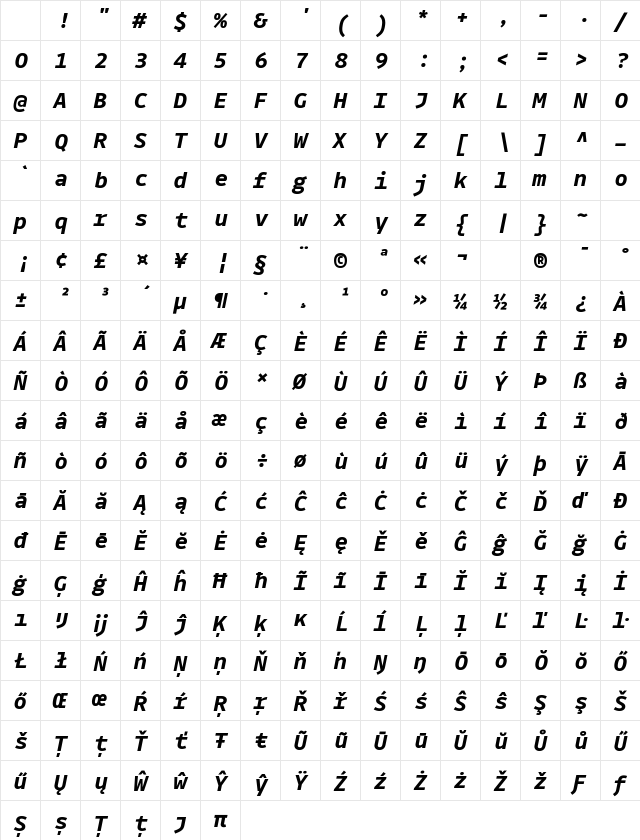
Complete Drive Mono Bold Italic glyph index. Displaying only characters natively supported by Drive Mono Bold Italic font.
Drive Mono uses fixed-width spacing throughout, giving it the structured, systematic character associated with coding environments and technical documentation. The slanted form adds forward momentum and visual energy. Its bold stroke weight gives it real presence on the page.